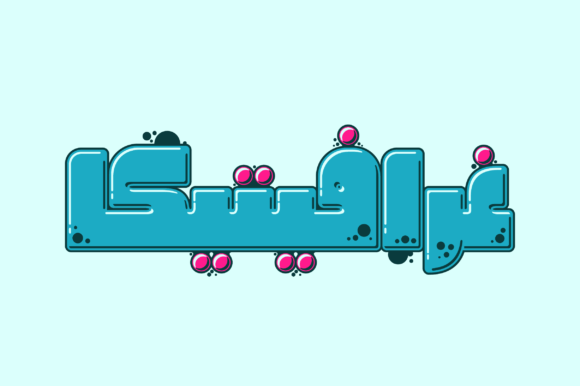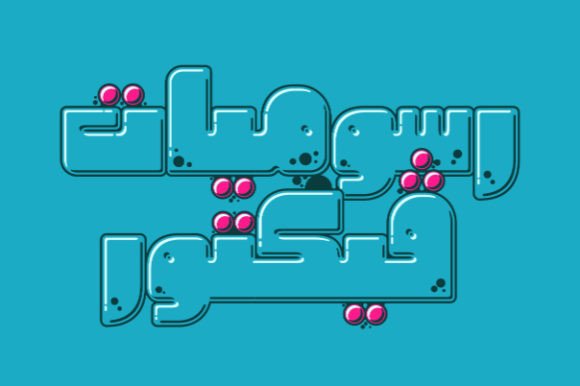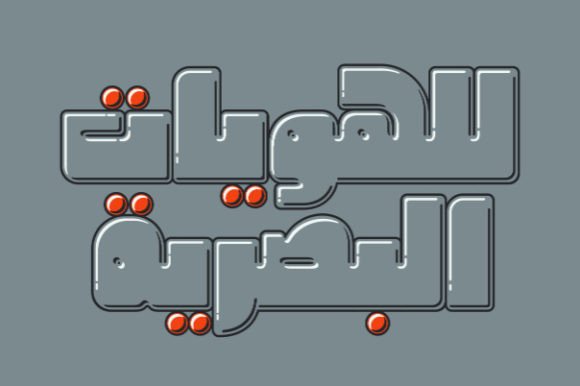
About Graffitica Font
Graffitica is a vibrant and expressive Arabic color display font that draws inspiration from street art and graffiti aesthetics. With its urban and edgy vibes, this font is sure to bring a bold and dynamic element to your projects.
Designed specifically for Arabic typography, Graffitica adds a contemporary and artistic touch to your Arabic text. Its colorful and textured appearance captures the essence of street art, infusing your designs with an urban and rebellious spirit.
By confidently incorporating Graffitica into your projects, you can achieve visually striking and impactful results. Whether you’re working on graphic design projects, posters, branding materials, or any other creative endeavor that requires a touch of urban flair, this font will make a statement.
Embrace the creativity and urban vibes of Graffitica to elevate your Arabic design projects. Let its fusion of street art and graffiti aesthetics add a unique and captivating element to your work. With this font, you have the opportunity to create visually stunning and impactful designs that reflect your artistic vision.